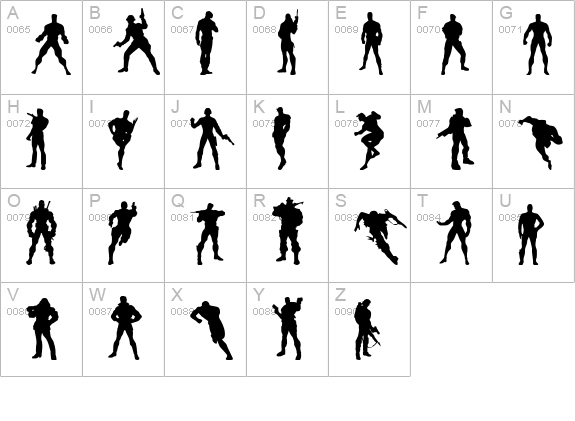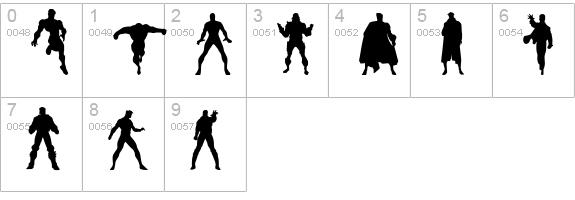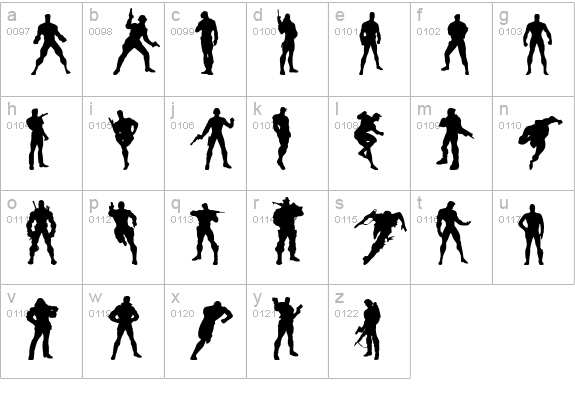
Action Men Font Details
The Action Men font is a bold and dynamic typeface that embodies strength and power. With its sharp edges and impactful design, this font exudes energy and action. Perfect for projects that require a strong and commanding presence, the Action Men font is sure to make a statement. Best of all, this font is available for free download at FontsMarket.com. Simply head over to the website and grab your copy to add a touch of action to your designs. Whether you're creating posters, logos, or any other graphic projects, the Action Men font will help you stand out and make a lasting impression. Download it now and unleash the power of this exciting font in your next project.